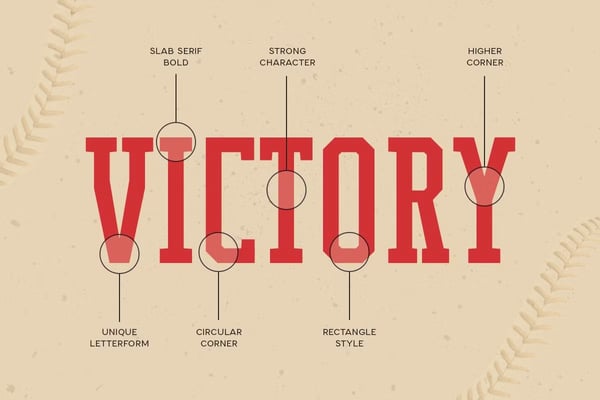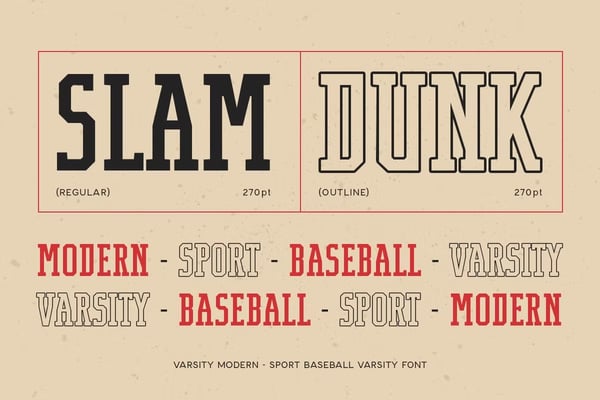
The Athletic Typography Your Sports Designs Have Been Missing
Finding the perfect font for sports branding can feel like searching for a needle in a haystack. You need something bold enough to command attention on a jersey, classic enough to honor athletic tradition, yet modern enough to stand out in today's competitive design landscape. Enter Varsity Modern - a free slab serif font that checks every box for athletic typography.
What Makes Varsity Modern Special
This isn't just another sports font thrown together with basic block letters. Varsity Modern draws inspiration from the dynamic energy of varsity sports and baseball tradition, delivering a typeface that genuinely feels like it belongs on the field.
The bold slab serif structure gives it that unmistakable athletic presence, while thoughtful design details keep it from looking dated or overly nostalgic. Whether you're designing team logos, creating sports merchandise, or developing athletic-themed marketing materials, this font brings the excitement of competition directly into your creative work.
Perfect Applications for Athletic Design
Varsity Modern shines brightest in sports-focused projects. Think team jerseys that need numbers and names that pop under stadium lights, championship banners that celebrate victory, or varsity jackets that carry decades of tradition. The font's condensed nature makes it incredibly versatile for both large display text and smaller supporting copy.
College athletics departments will find this particularly valuable for maintaining brand consistency across everything from recruiting materials to merchandise. The retro sports aesthetic appeals to alumni while remaining fresh enough to attract new fans.